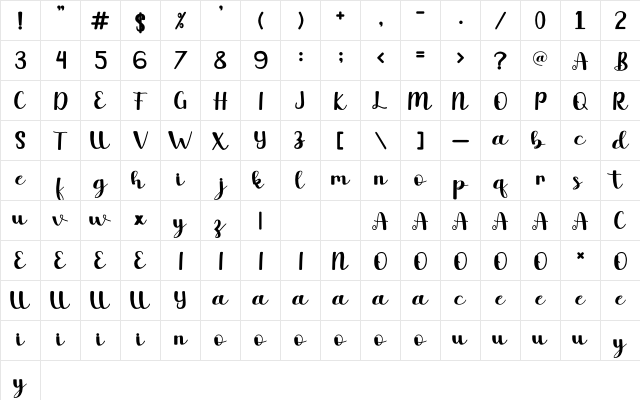
Yume Regular
| Designer | Faris Graphic Art |
Design Context for Yume Typeface
Yume is a composed and adaptable typeface that performs quietly and consistently across a wide range of design contexts.
Pro Tip: Pair Yume with a font of contrasting weight or personality to build a more expressive typographic hierarchy.